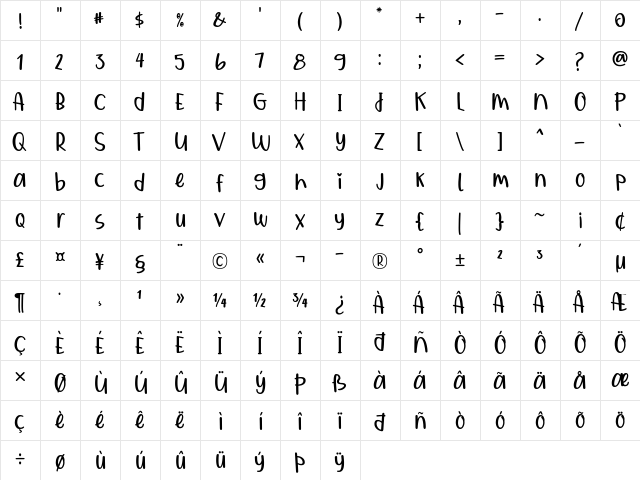
Qiyoshi Regular
| Foundry | 7NTypes |
| Designer | Adyfo; Situjuh Nazara |
Design Context for Qiyoshi Typeface
Qiyoshi is a composed and adaptable typeface that performs quietly and consistently across a wide range of design contexts.